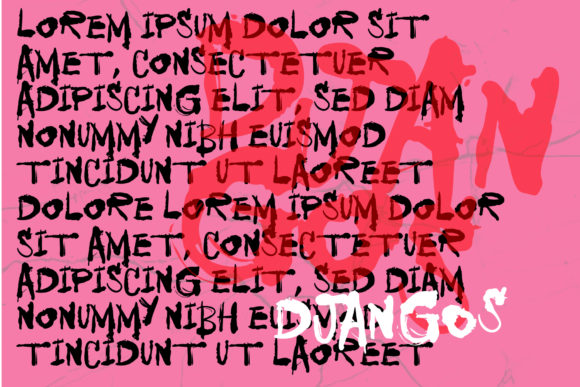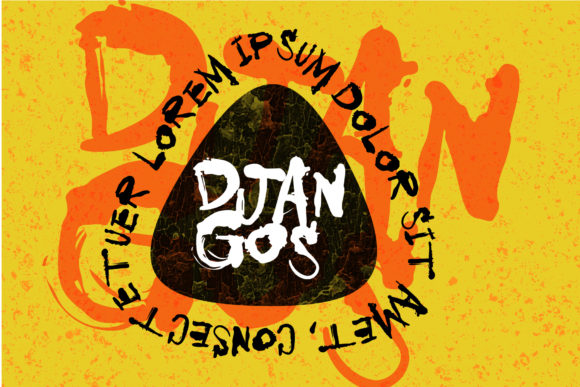
Djangos Font: Unleash Your Creativity with this Unique Display Font
Are you tired of using the same old fonts in your designs? Look no further than Djangos Font, an incredibly unique and interesting looking display font that’s sure to take your creative projects to the next level. With its endless variations, Djangos Font is perfect for designers and crafters looking to add a touch of personality to their work.
What Makes Djangos Font So Special?
Djangos Font is a one-of-a-kind display font that’s sure to turn heads. Its unique and interesting design makes it perfect for a wide range of creative projects, from bold headlines to eye-catching posters. Whether you’re a professional designer or a crafty DIY enthusiast, Djangos Font is sure to inspire you to try new things and push the boundaries of your creativity.
Exploring the Endless Variations of Djangos Font
One of the best things about Djangos Font is its incredible versatility. With a wide range of variations to choose from, you can use this font to create a unique look that’s all your own. Experiment with different font sizes, colors, and styles to see what works best for your project. Whether you’re looking for a bold and dramatic look or a more subtle and understated design, Djangos Font has got you covered.
Djangos Font is a dream come true for designers and crafters. Whether you’re working on a professional project or a personal craft, this font is sure to add a touch of personality and style to your work. Use it to create stunning posters, eye-catching logos, or beautiful handmade cards. The possibilities are endless with Djangos Font!
Tips for Using Djangos Font
Here are a few tips for getting the most out of Djangos Font:
- Experiment with different font sizes: Djangos Font looks great in a wide range of sizes, from bold headlines to smaller body text.
- Play with color: Try using different colors to add depth and interest to your design.
- Mix and match: Don’t be afraid to combine Djangos Font with other fonts to create a unique and interesting look.
Getting Creative with Djangos Font
So now that you’ve got a feel for what Djangos Font has to offer, it’s time to get creative! Here are a few ideas to get you started:
- Create a stunning poster: Use Djangos Font to create a bold and eye-catching poster that’s sure to grab attention.
- Make a beautiful handmade card: Add a personal touch to your cards with Djangos Font.
- Design a unique logo: Use Djangos Font to create a one-of-a-kind logo that’s sure to stand out.
Djangos Font is an incredibly unique and interesting looking display font that’s perfect for designers and crafters. With its endless variations and incredible versatility, this font is sure to inspire you to try new things and push the boundaries of your creativity. So why wait? Download Djangos Font today and see what amazing things you can create!
Key Features of Djangos Font
- Unique and interesting design: Djangos Font is a one-of-a-kind display font that’s sure to turn heads.
- Endless variations: Experiment with different font sizes, colors, and styles to create a unique look that’s all your own.
- Perfect for designers and crafters: Whether you’re working on a professional project or a personal craft, Djangos Font is sure to add a touch of personality and style to your work.